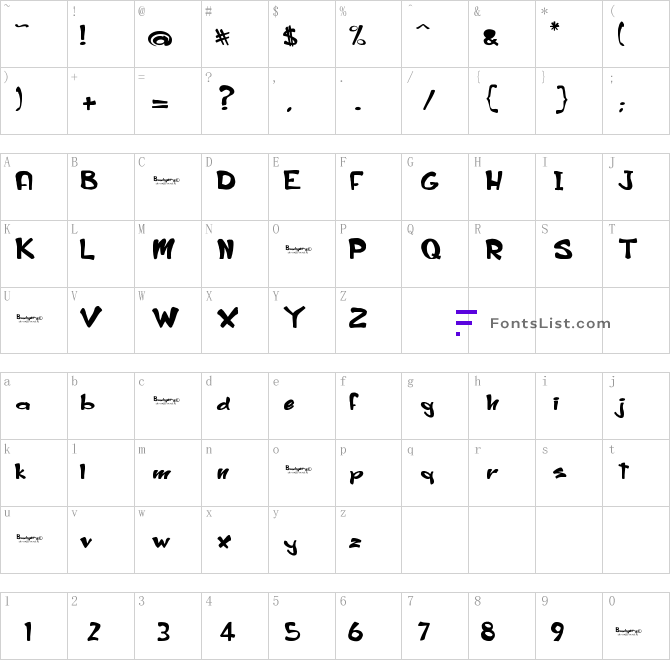
- Font Name:Badgery
Badgery.ttf is a very beautiful artistic font, Badgery.ttf is widely used in the design and printing of various books and pictures,Badgery.ttf has a strong visual impact,Badgery.ttf is a commonly used font in newspapers, magazines and books, and is used in posters, e-commerce Poster design, store design, logo design, font design and other fields.Badgery.